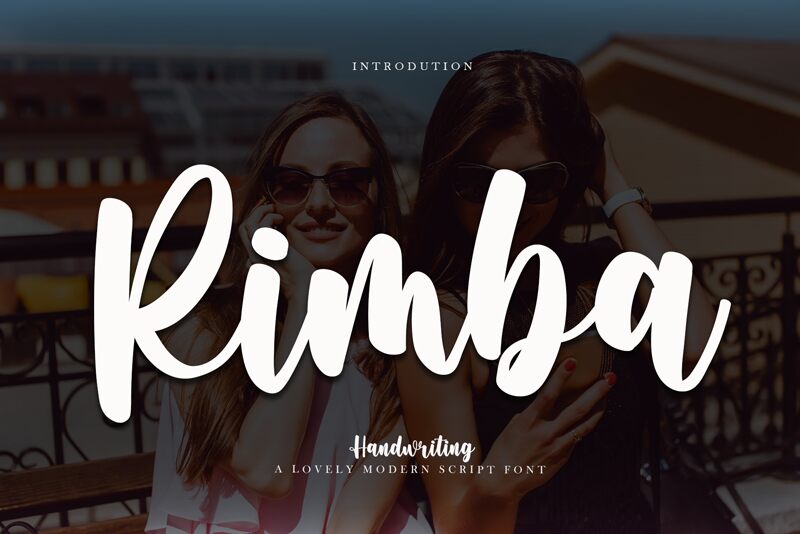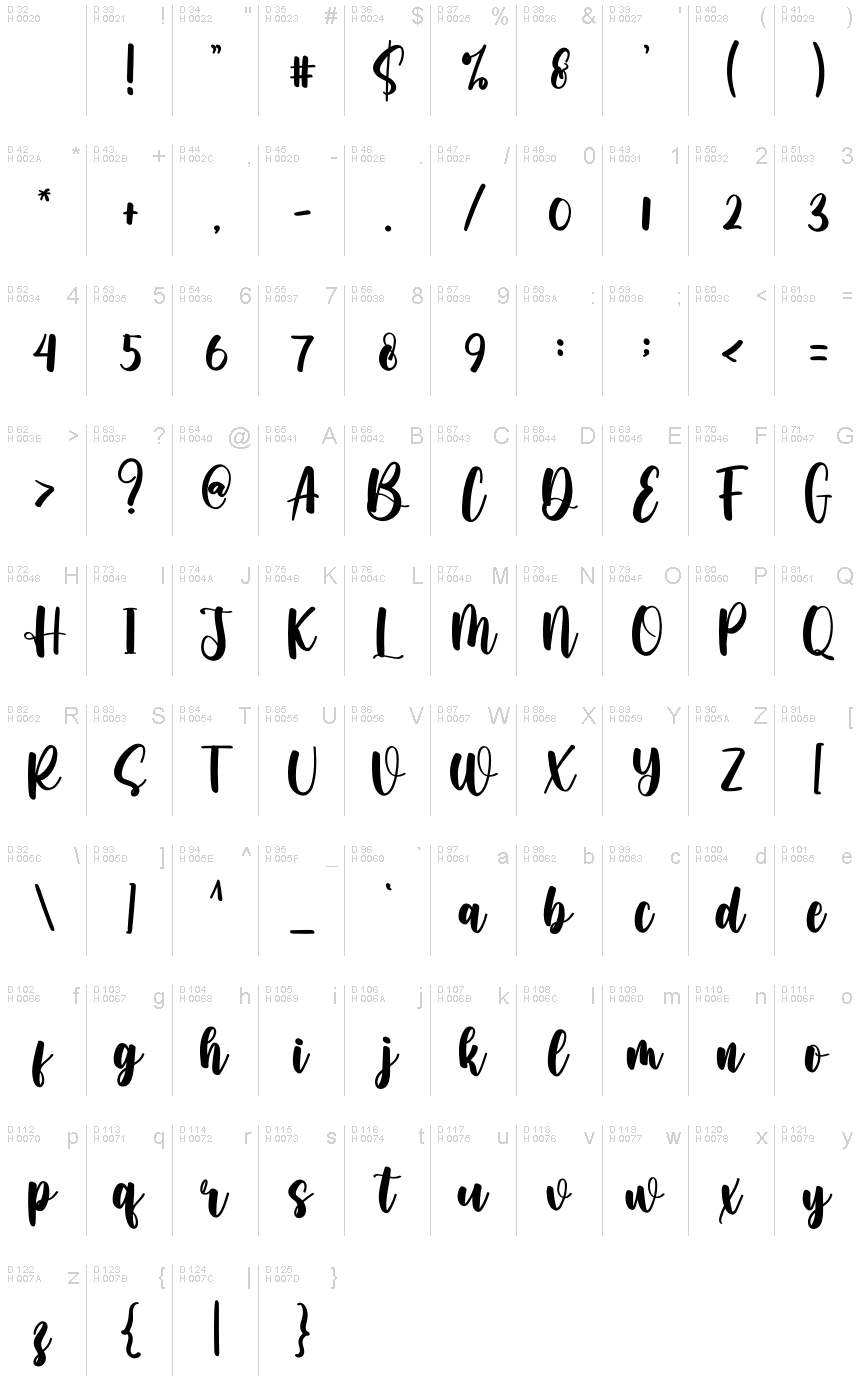
Rimba
Rimba flows onto the page with the grace of classic calligraphy, yet strikes a modern chord that resonates with today's design sensibilities. Crafted by Juneteenth, this handwritten font dances with an elegance that captures attention, making it an ideal choice for those seeking a blend of tradition and trendiness. Its fluidity and expressive style breathe life into any project, from sophisticated letterheads to personalized stationery.
Whether employed in branding or editorial contexts, Rimba is set to infuse creativity and charm into your designs.